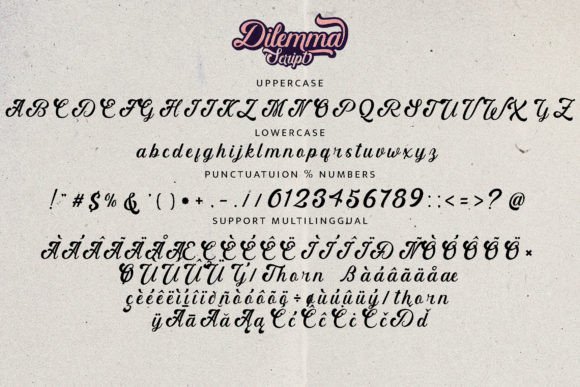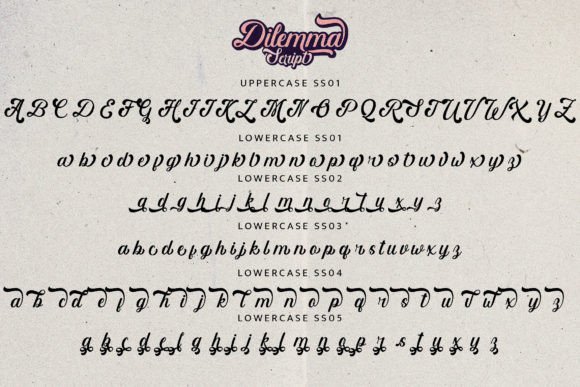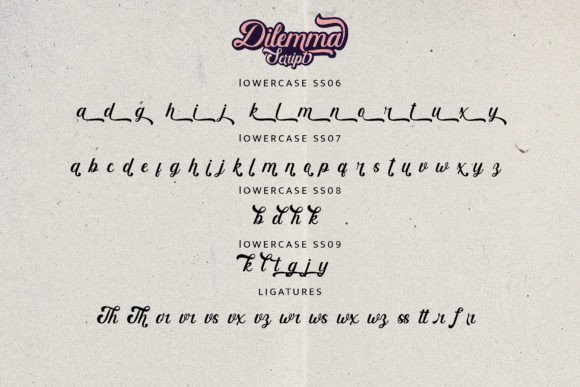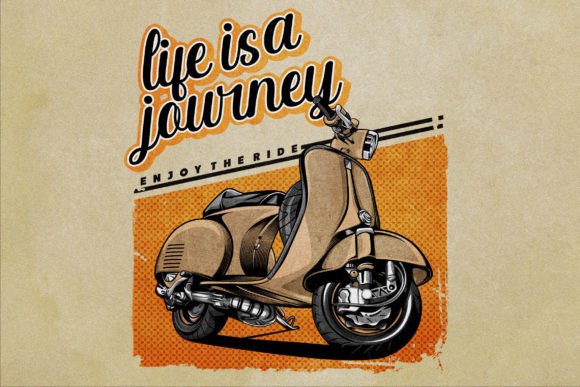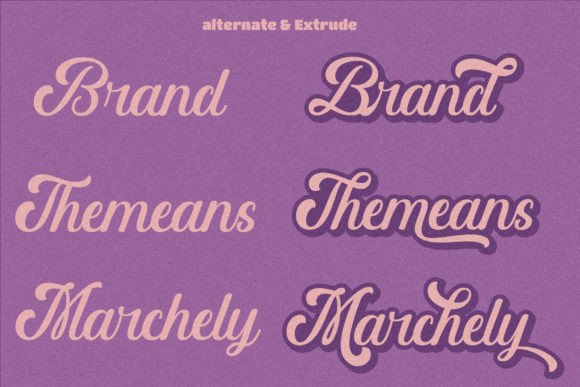
About Dilemma Script Font
Introducing Dilemma Script, a vintage bold script that will bring you back to nostalgia. This typeface is perfect for logos, logotypes, t-shirts, vintage badges, retro quotes, branding, packaging, posters, etc.